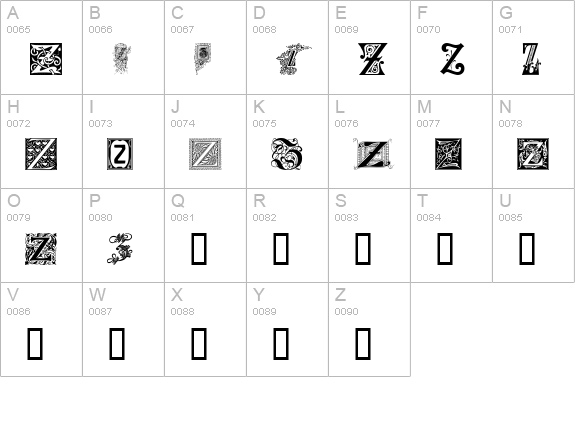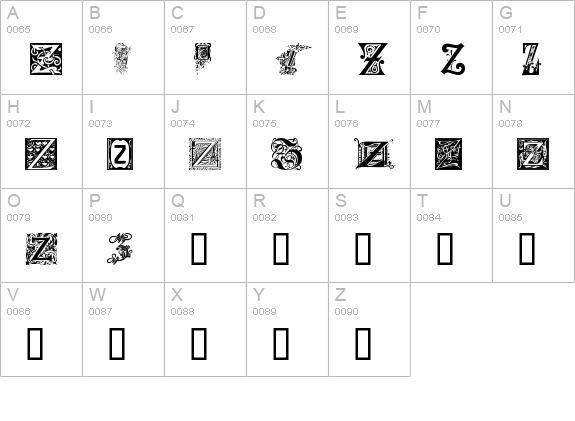
Ornamental Initials Z font is a stunning and elegant typeface that exudes sophistication and charm. Featuring intricate and ornate designs, this font is perfect for adding a touch of luxury to your projects. The elaborate details of the initials make them a standout feature that will captivate your audience. What makes Ornamental Initials Z font even more appealing is that it is available for free download at FontsMarket.com. This means that you can easily access this beautiful font and use it in your designs without any cost. Whether you're creating invitations, posters, or any other creative project, Ornamental Initials Z font will truly elevate your design and leave a lasting impression. Download it today and add a touch of elegance to your work!